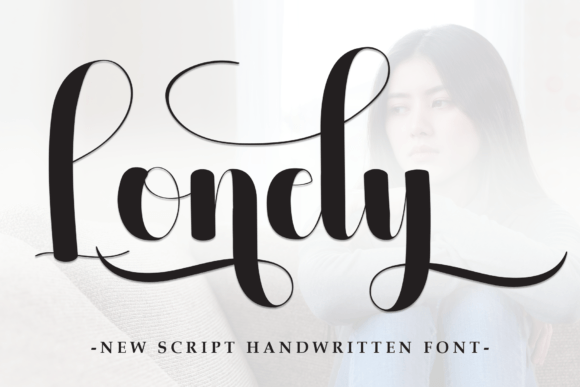
Meet Lonely Font - a charming and beautiful handwritten font that will add a touch of elegance and personality to your digital creations. Crafted by the talented William Jhardy, this script font exudes warmth and friendliness, making it the perfect choice for a wide range of projects.
With its smooth, flowing lines and delicate curves, Lonely Font will elevate your designs and leave a lasting impression. Its unique and eye-catching aesthetic is sure to capture the attention of your audience, making it an ideal choice for wedding invitations, cards, logos, posters, and more.
Step into a world of creativity and endless possibilities with Lonely Font. Let its graceful letters dance across your designs, adding a touch of whimsy and charm to your projects. Whether you're a seasoned designer or just starting out, this font is sure to become your new go-to for adding a personal touch to your work.